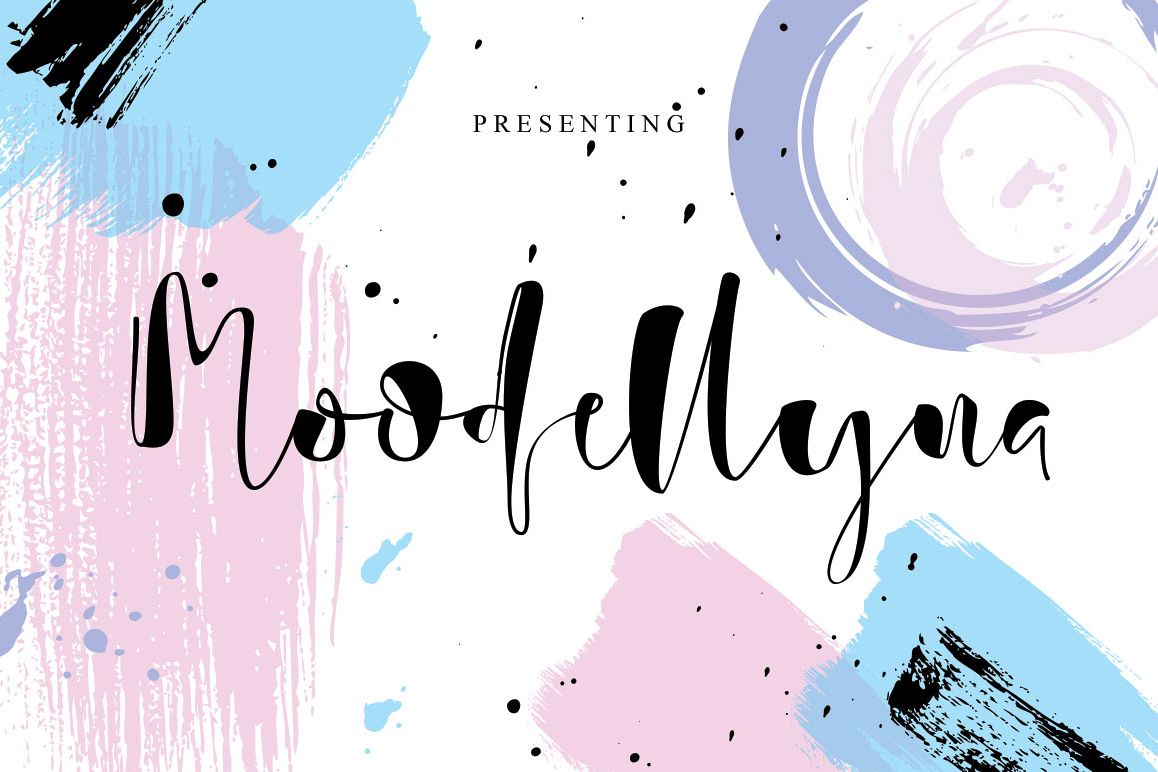
Moodellyne
Moodellyna
Presenting to you a Moodellyna Script, a hand lettering moodie
calligraphy, Moodellyna   Script creating the natural font for your designs
beyond a standard font and include Ligatures (letters custom).
to use it for various purpose like wedding invitations, logos, signatures,
t-shirts design, cards, printed quotes, product packagings, headings, blogs,
graffiti, website headline and more. Enjoy this exclusive set and explore your
fantastic design.
• Moodellyna
Alternate has special feature ‘end swashes’